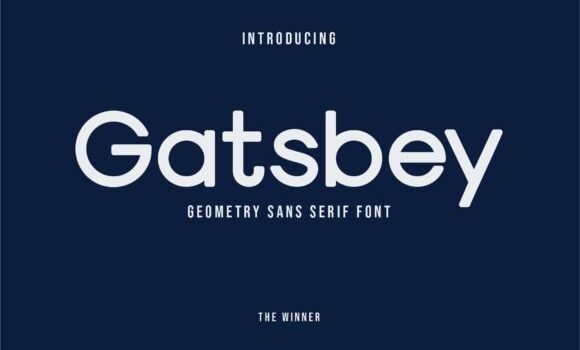
Gatsbey Font – Free Download Introduction to Gatsbey Font Gatsbey is a simple lettered and neat sans serif font. 📸 Preview Gallery 6 images 📌 Product Name Gatsbey Font 👤 Author The1stWinner 📂 Category Explore ⬇️ Download Gatsbey Font FREE